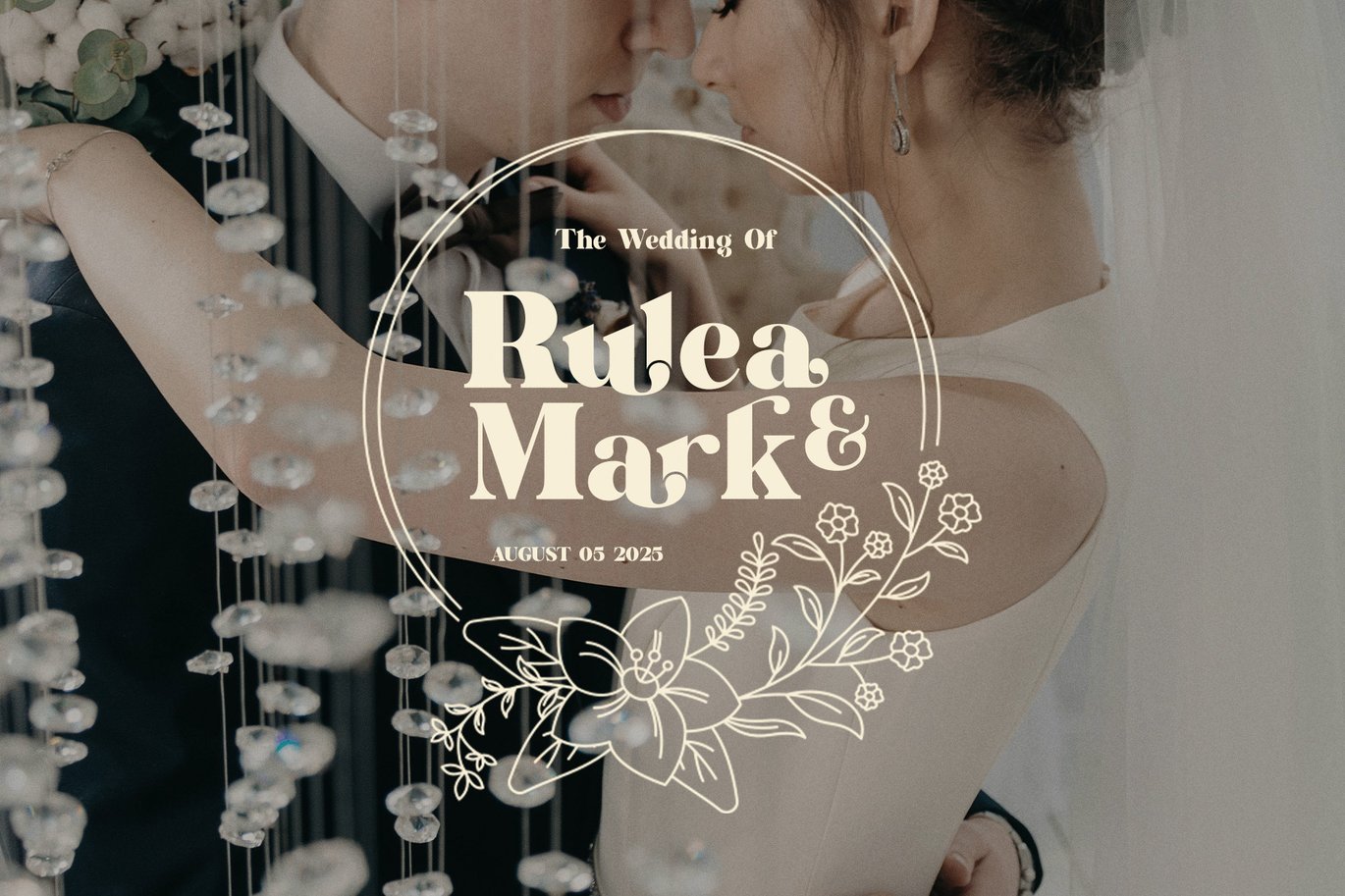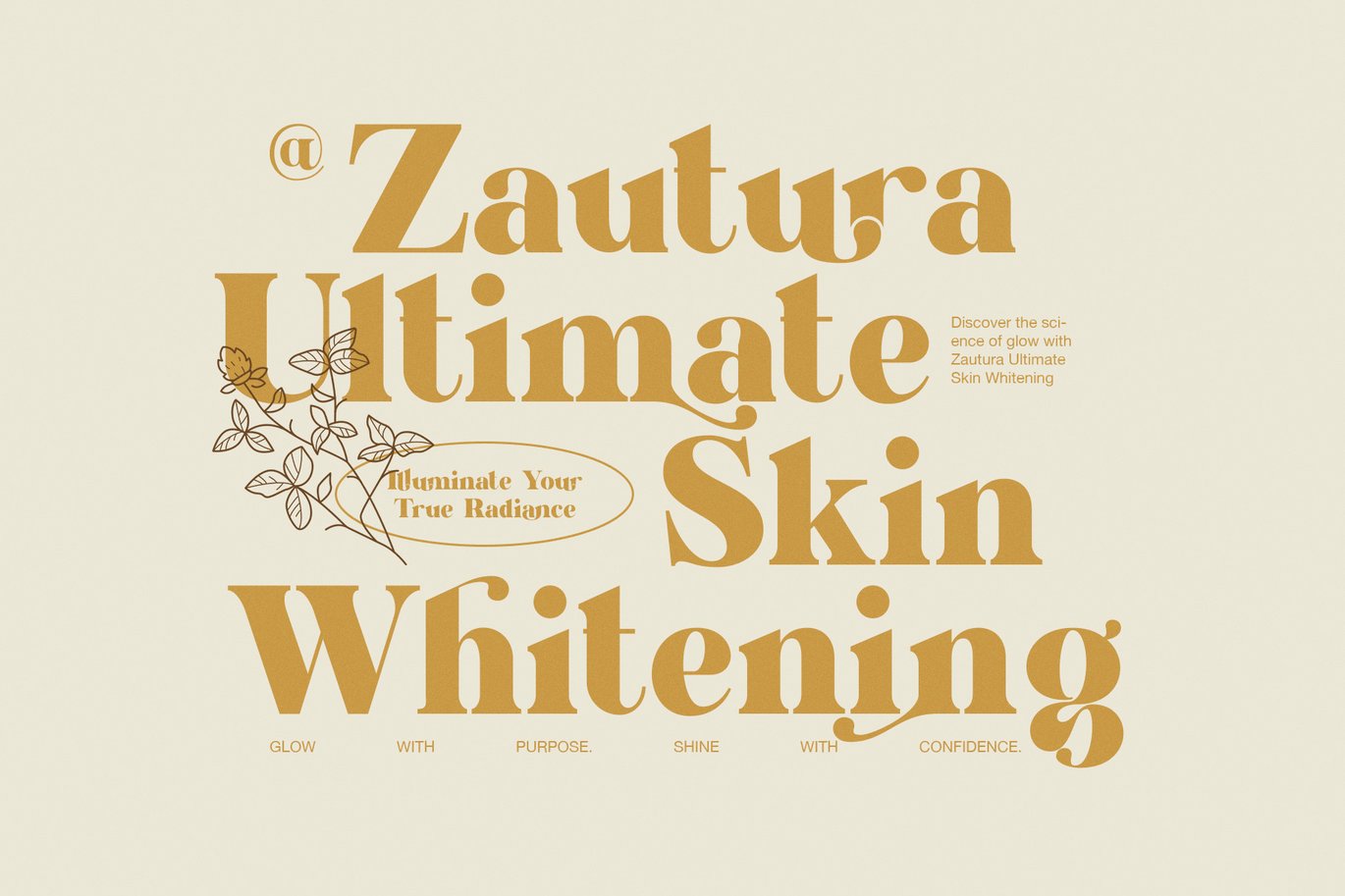
Mahis Vintage Serif Font
Mahis Vintage Serif Font is a versatile typeface ideal for various projects, including logos, branding, posters, blog headers, advertisements. The free version includes a full set of uppercase and lowercase letters, available in OTF format.